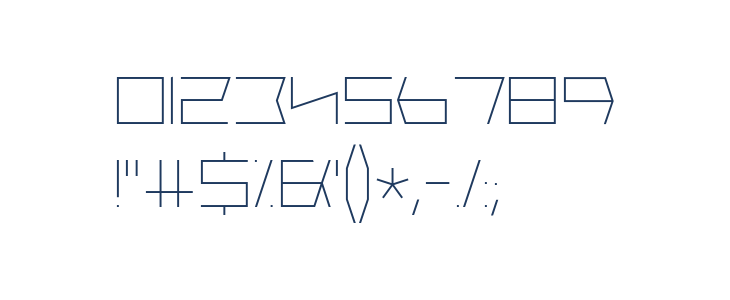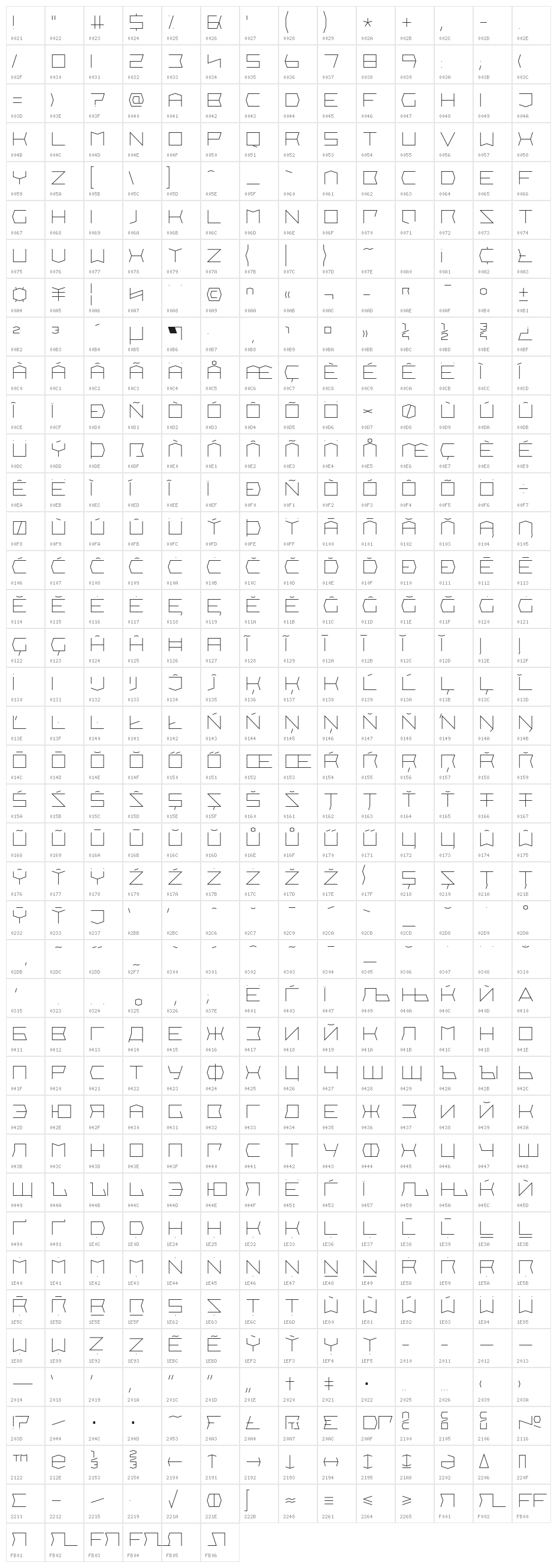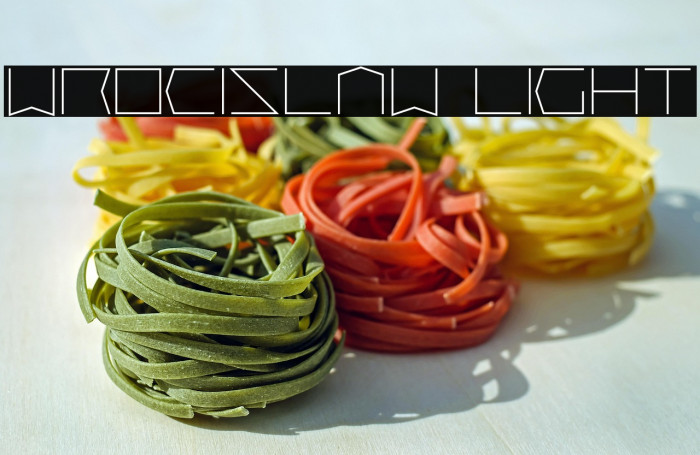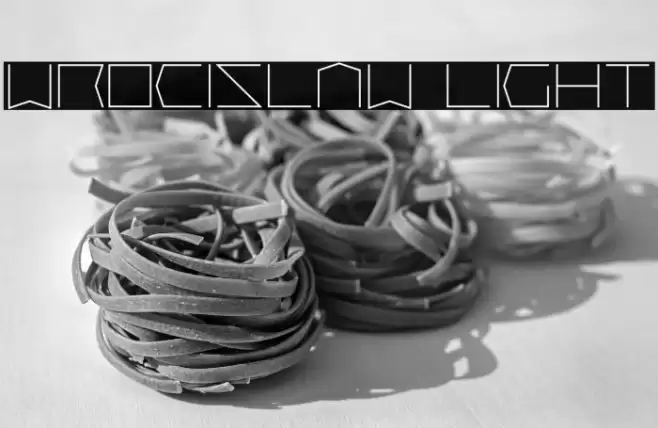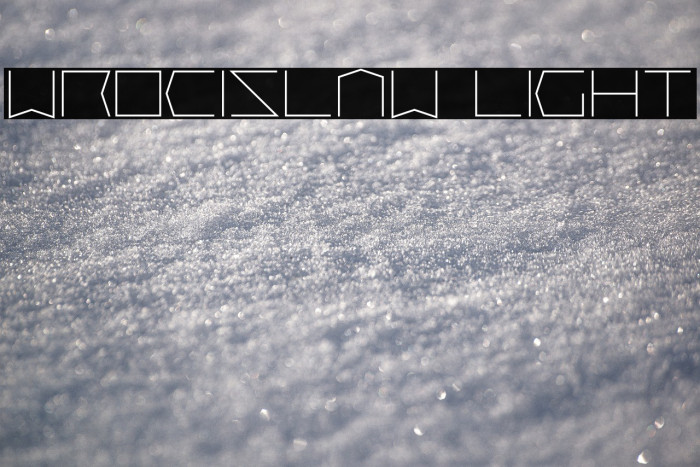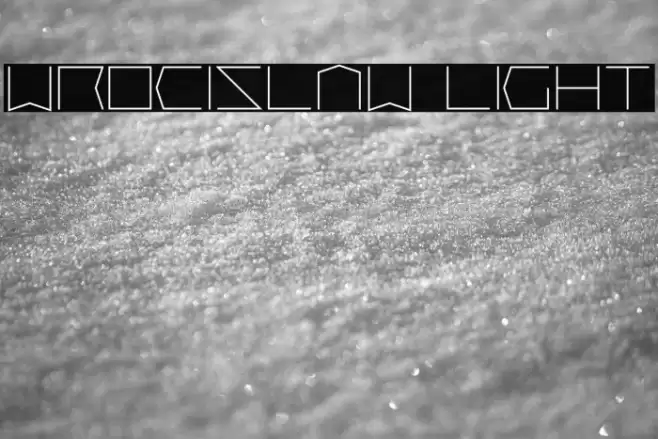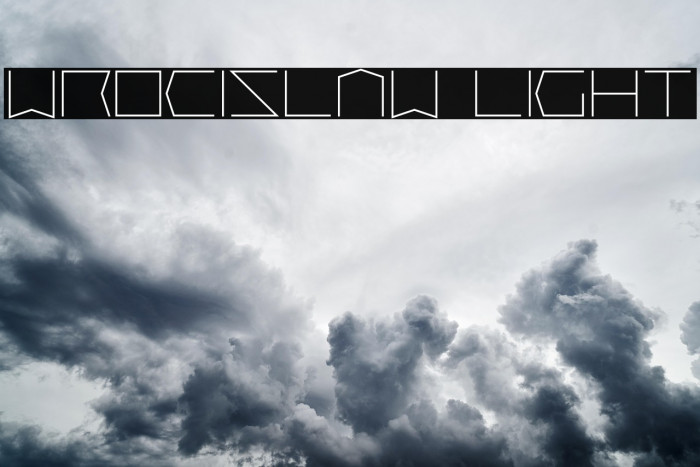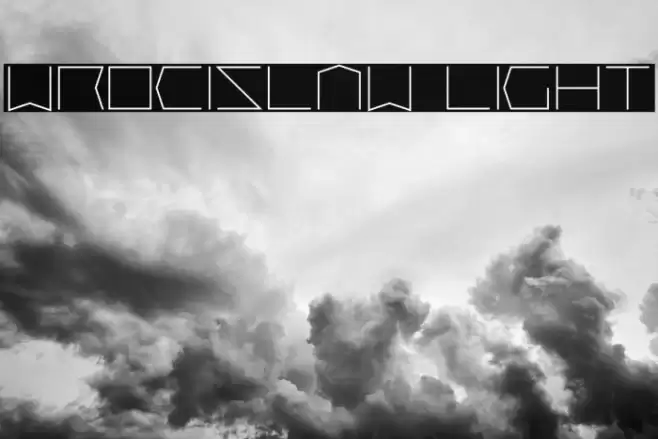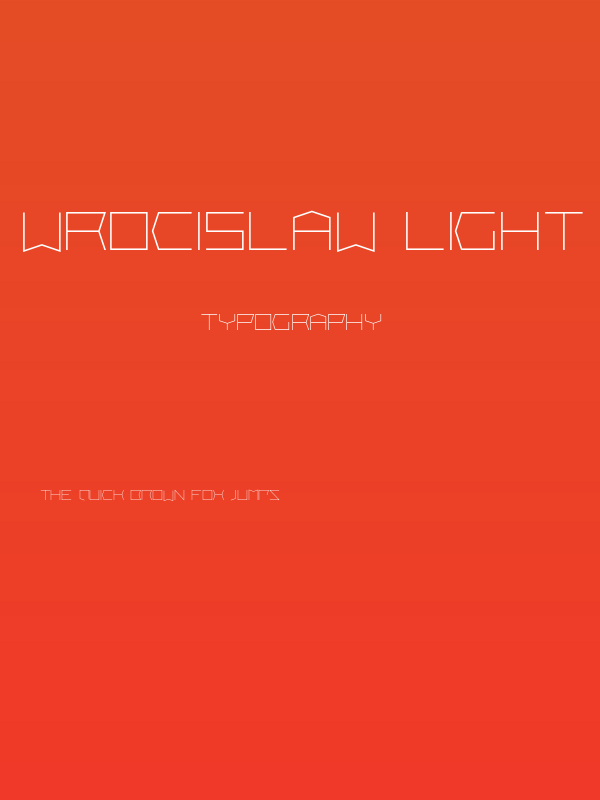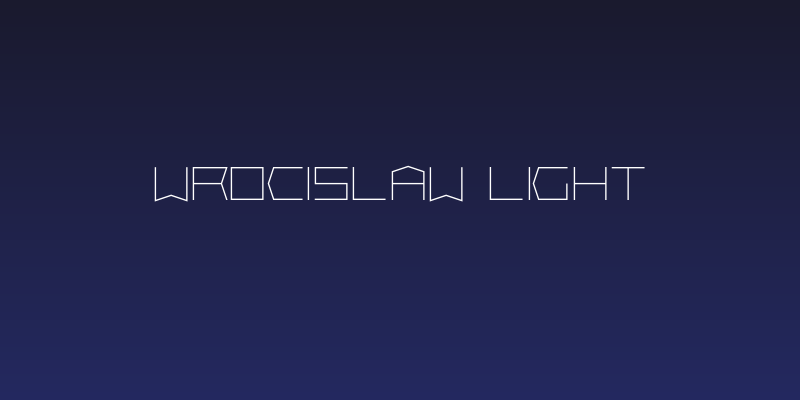
Wrocislaw Light Font
Wrocislaw Light Description
This font features a geometric and minimalist design, characterized by its thin, linear strokes and angular shapes. The letters are constructed with straight lines and sharp angles, giving it a futuristic and technical appearance. The uniformity in line thickness across all characters contributes to its clean and modern look. The uppercase and lowercase letters maintain a consistent style, with the lowercase mirroring the uppercase in form but smaller in size. Numbers and special characters follow the same design principles, ensuring a cohesive visual identity throughout. Its simplicity and precision make it suitable for projects that require a contemporary and sleek aesthetic.
| Use Case | Logos, Headlines, Digital Interfaces |
| Proposed Projects | Ideal for tech branding, modern posters, digital interfaces, and minimalist design projects. |